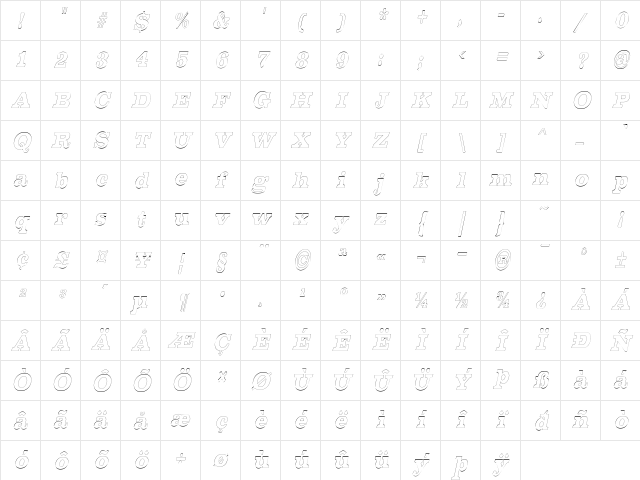
ChestnutOutlineCondensed Oblique
Design Context for ChestnutOutlineCondensed
ChestnutOutlineCondensed is built around its visual character rather than neutral utility - its distinctive forms are designed to make an impression at display sizes. The slanted form adds forward momentum and visual energy.
Font Pairing: Pair with a clean neutral sans-serif for body copy to let ChestnutOutlineCondensed's character lead without overwhelming the composition.
Pro Tip: Use ChestnutOutlineCondensed exclusively at display sizes - it was designed to be seen, not read at length. Let a neutral companion handle body copy.